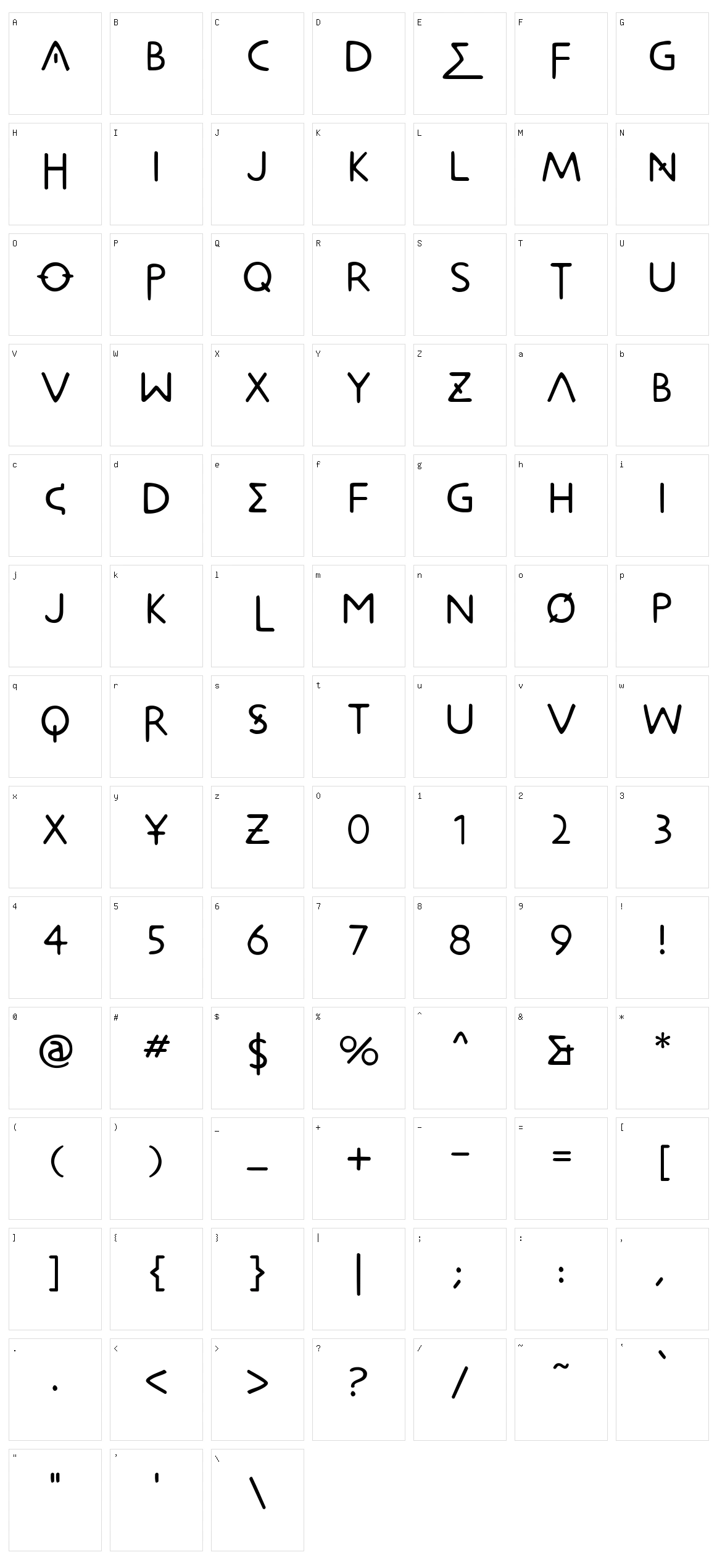
Metrolox is loosely based on the titling of the Enemy of the State movie. I say "loosely" because the movie titling showed only so many letters, and the lab's final version turned out so big.